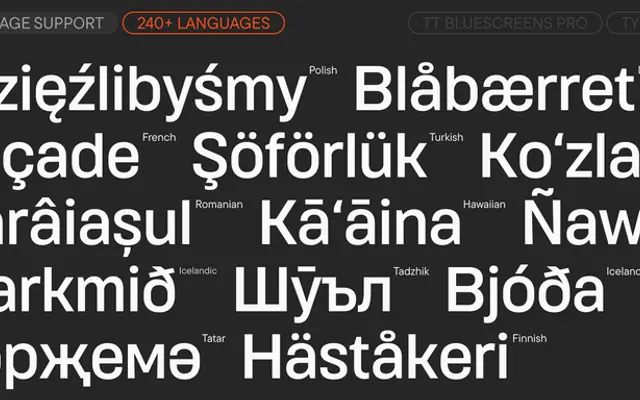
TT Bluescreens Pro
TypeType · Marina Khodak, Antonina Zhulkova, Anastasia Pogorelova, Ksenia Karataeva · 2015
Originally designed for film posters and credits in 2015, this modular neo-grotesque now spans five width subfamilies from condensed to extended across 91 styles.
Created by the TypeType team for movie poster and credits work, TT Bluescreens Pro has grown from a narrow display sans into a full-width system covering Condensed, Normal, Expanded and Extended subfamilies alongside the base family. The fourth version, released in early 2026, unifies all five widths into a single variable font with axes for weight, width and slant, and covers over 240 languages across Latin and Cyrillic. With 877 glyphs per style and 30 OpenType features including stylistic sets and localisation support, it suits branding, packaging, posters and event materials.
A modular neo-grotesque with no stroke contrast and geometric, modular construction. The family spans extreme width variants from condensed to extended, originally designed for narrow display use in film contexts.